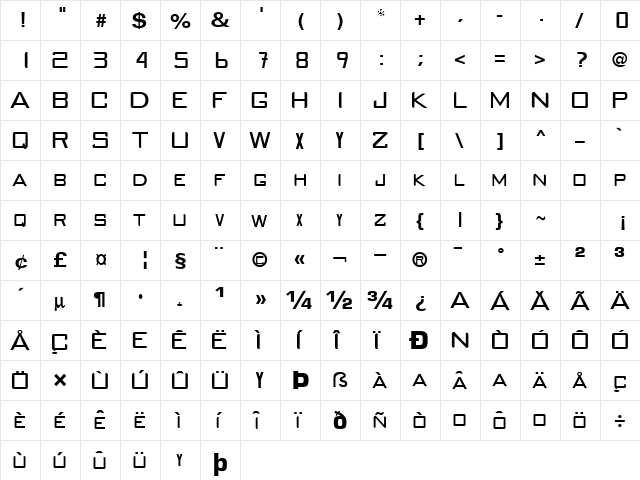
Main Regular
Design Context for Main Typeface
Main offers clean, dependable letterforms without strong stylistic allegiance, making it a practical choice for designers who need flexibility.